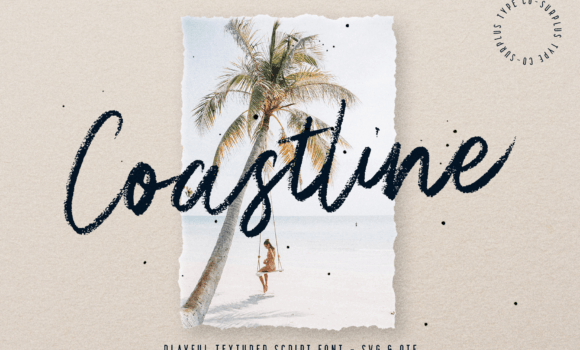
coastline
Coastline Font – Free Download Introduction to Coastline Font Introducing Coastline – A textured script typeface which features regular & alternate fonts in both . 📸 Preview Gallery 5 images 📌 Product Name Coastline Font 👤 Author Surplus Type Co.